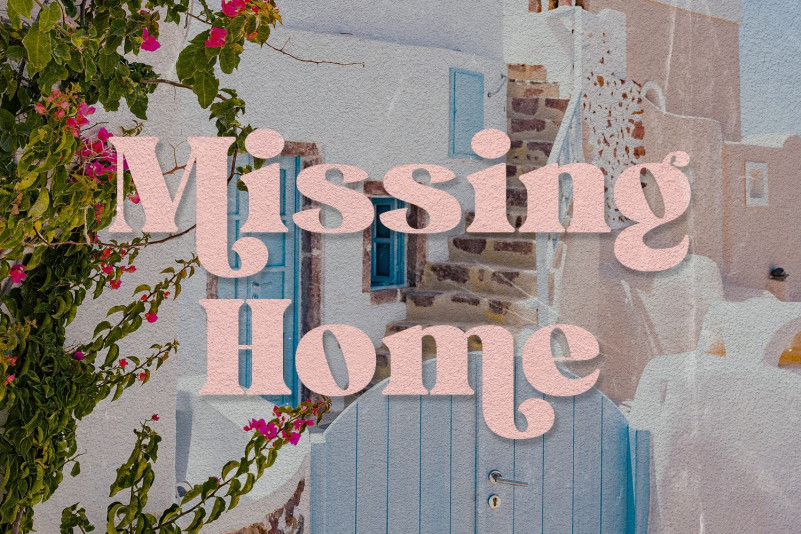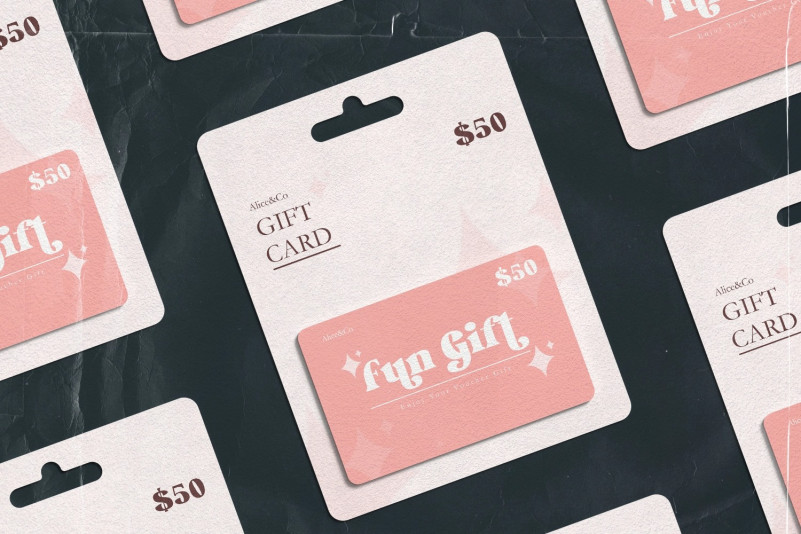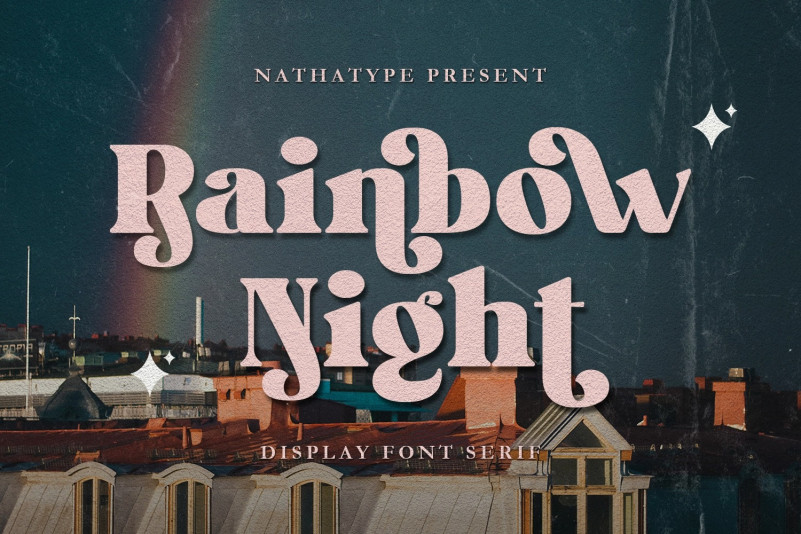
Rainbow Night Font
Rainbow Night Serif Font is an elegant, prominent display serif font to attract everyone who sees it. A serif font is a font with hooks and tiny scratches attached to the letters’ edges. The huge serif size adjacent to each other in such a font makes the letters look heavier. Moreover, this font is deliberately created in thick lines and strong contrasts as the characters of a display font to produce strong visual displays. Generally, such a display serif font can show elegant, classy nuances to assign a strong identity to the brand, to stand the desired messages out, and to get the messages easily recognized by readers. You can apply this font for various text sizes due to its great legibility. In addition, you can make use of the available features here as well.